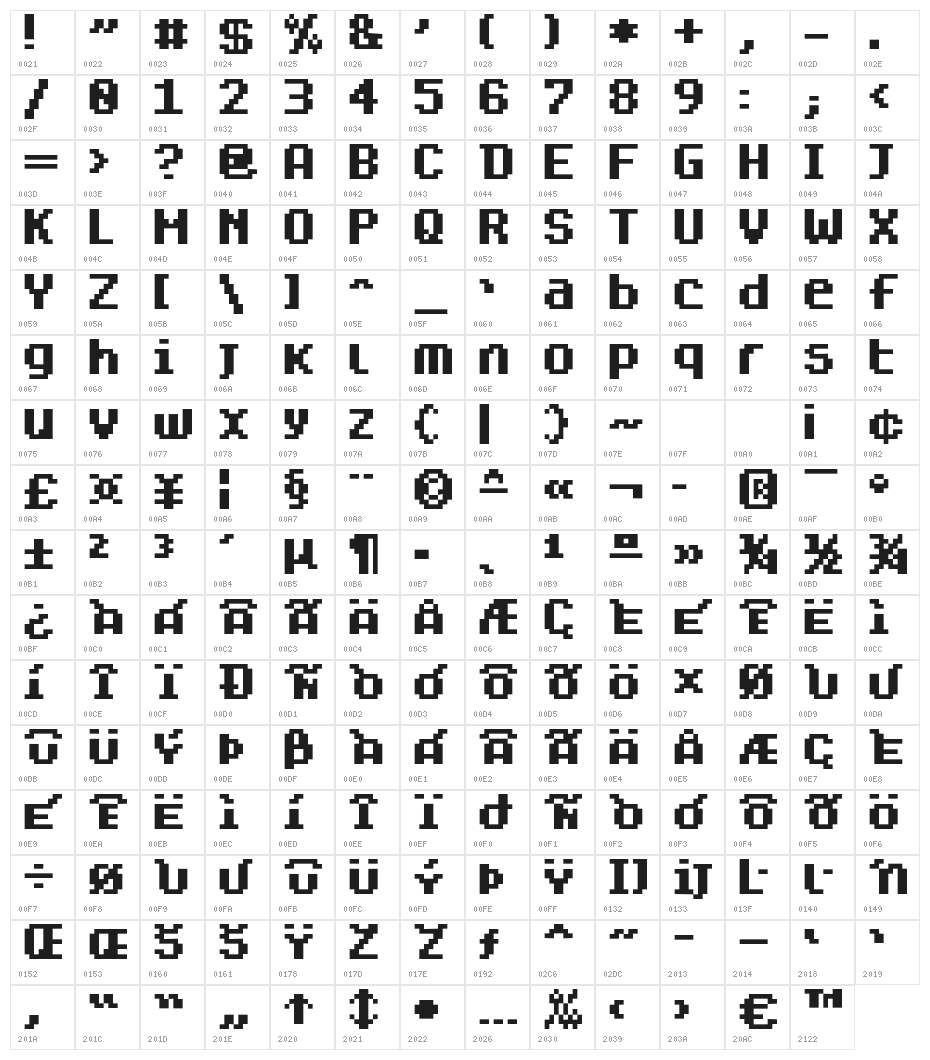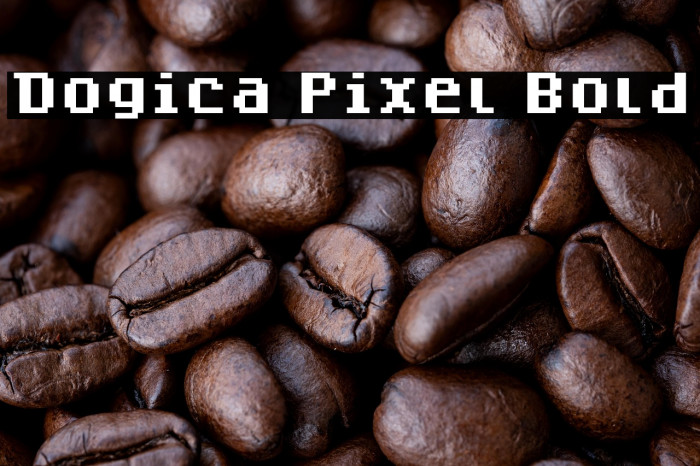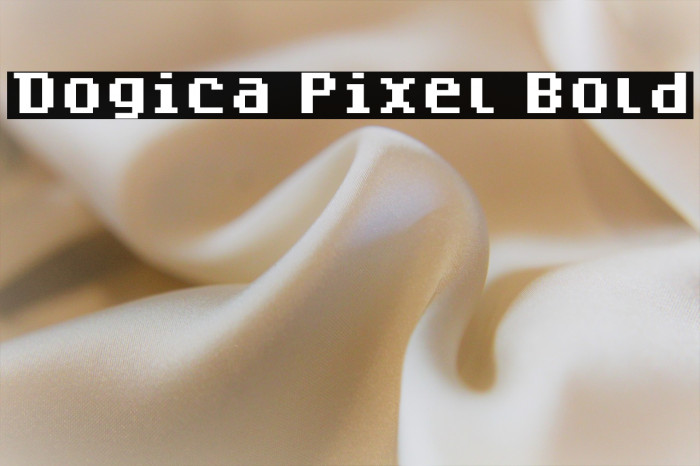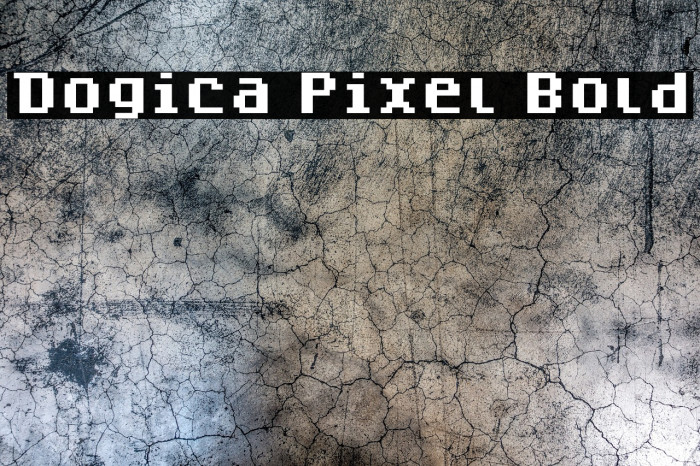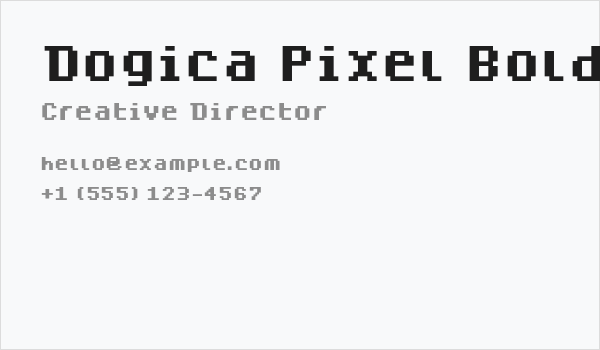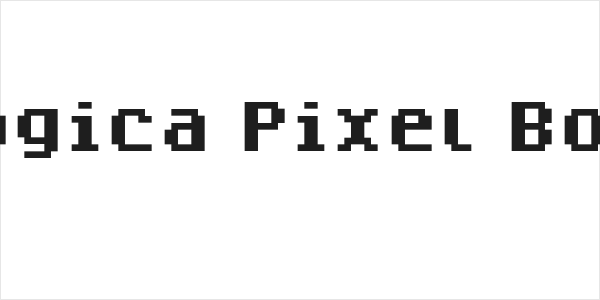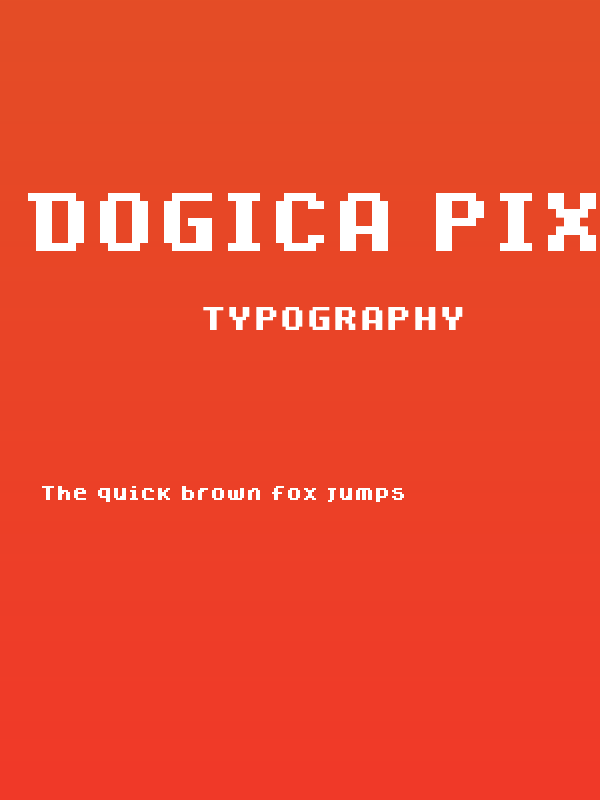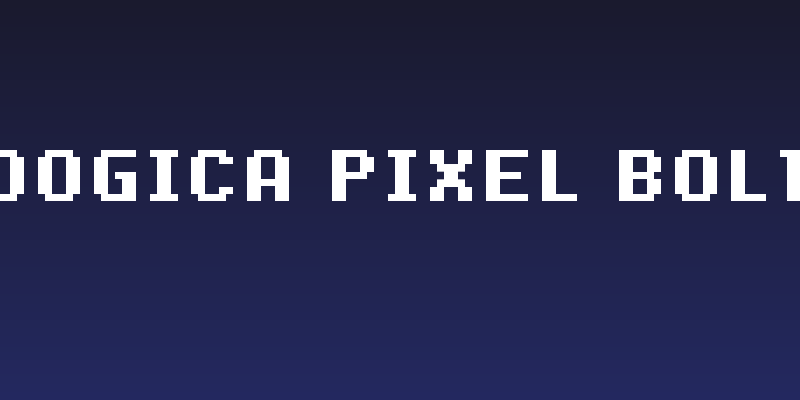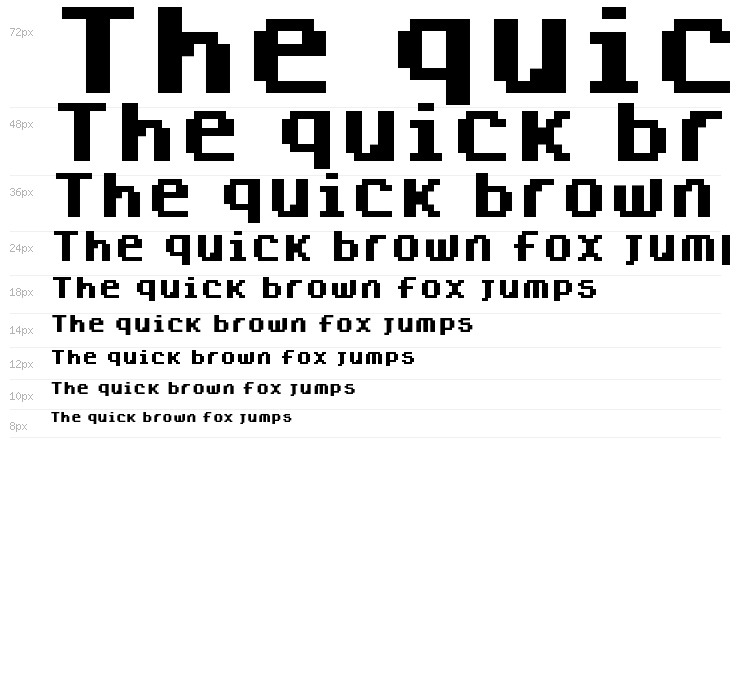
Dogica Pixel Bold Font
Dogica Pixel Bold Description
This font features a bold, pixelated design reminiscent of early digital displays and retro video games. Each character is constructed with a blocky, grid-like structure, giving it a distinct, nostalgic feel. The uppercase and lowercase letters maintain a consistent height, enhancing readability while preserving the pixel art aesthetic. Numbers and special characters are similarly styled, ensuring uniformity across all glyphs. The font's simplicity and clarity make it ideal for projects that aim to evoke a sense of nostalgia or a retro digital theme.
| Overall Style | Retro, Digital |
| Use Case | Headlines, Logos, Digital Art |
| Proposed Projects | Ideal for retro-themed video games, digital art projects, pixel art designs, and nostalgic branding. |